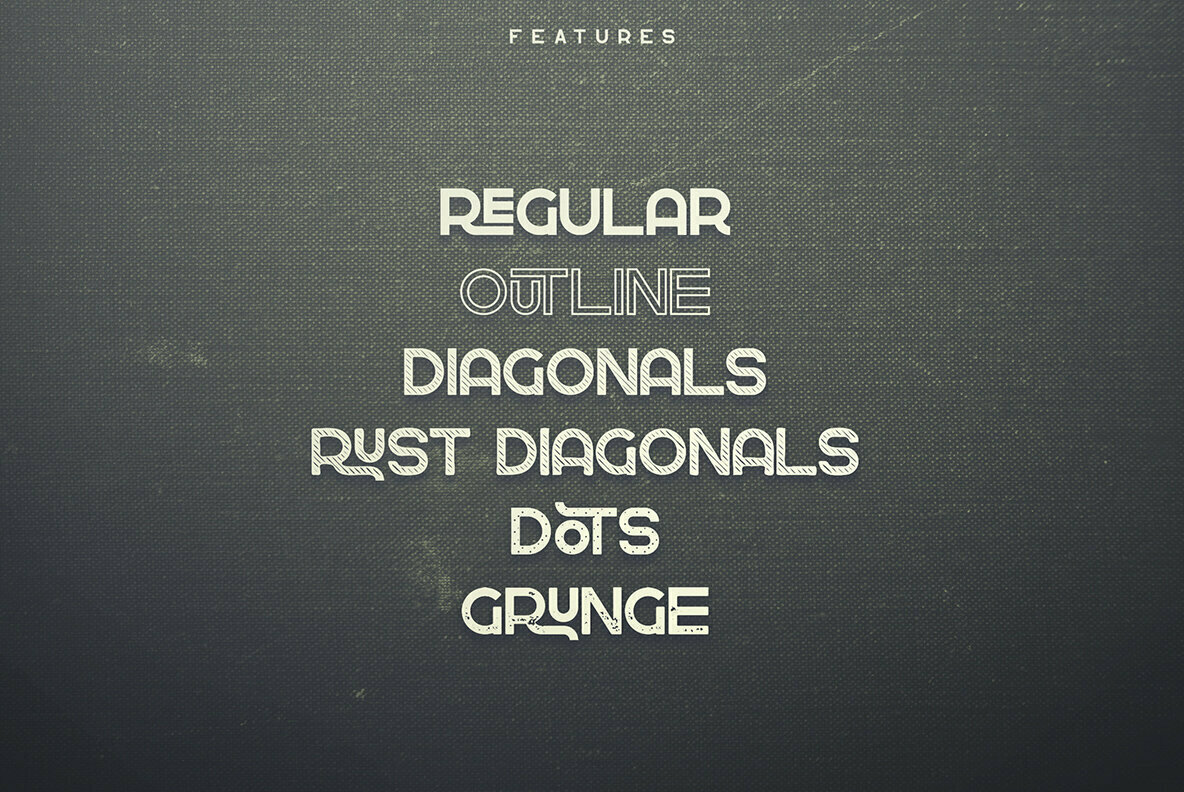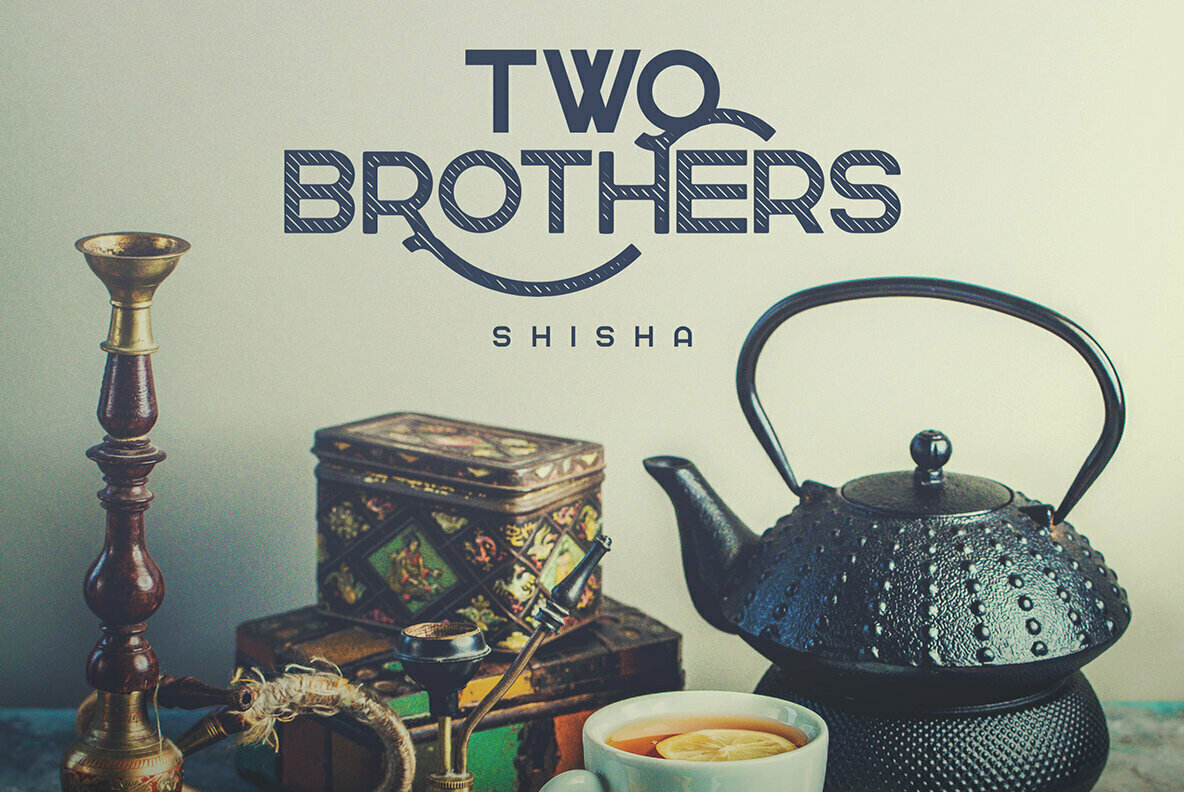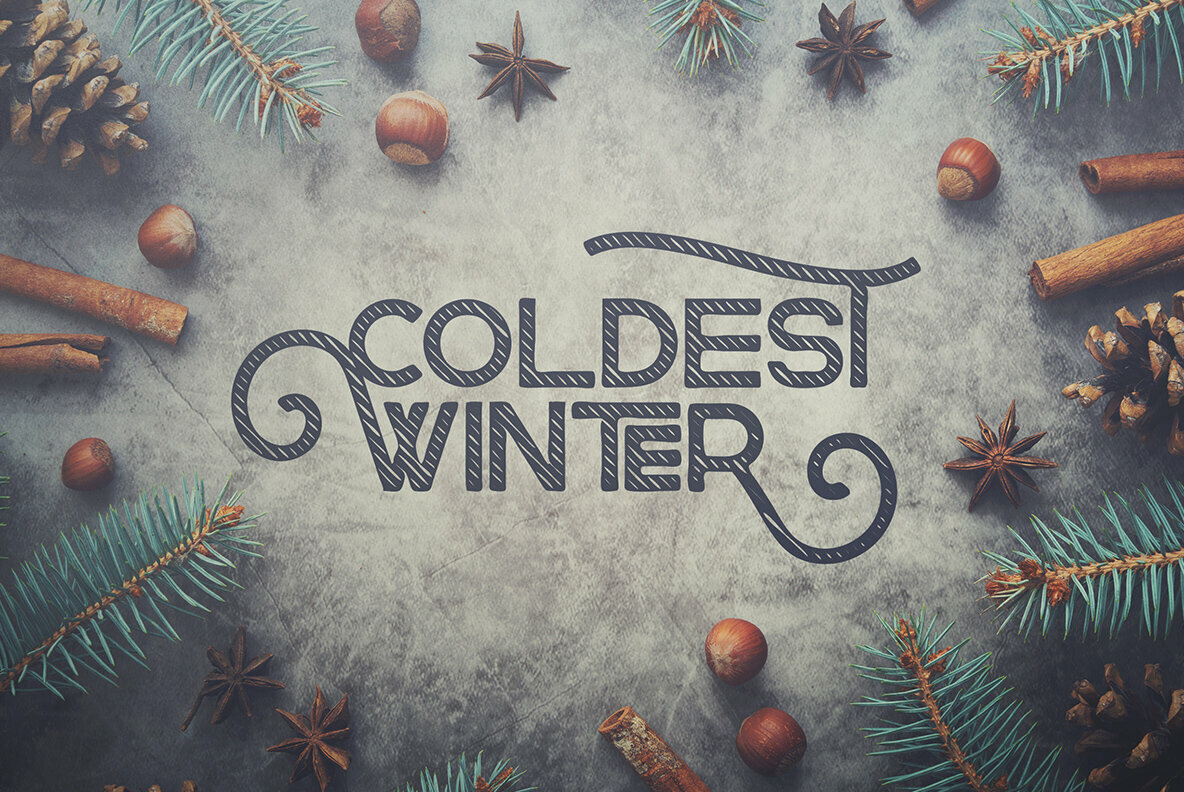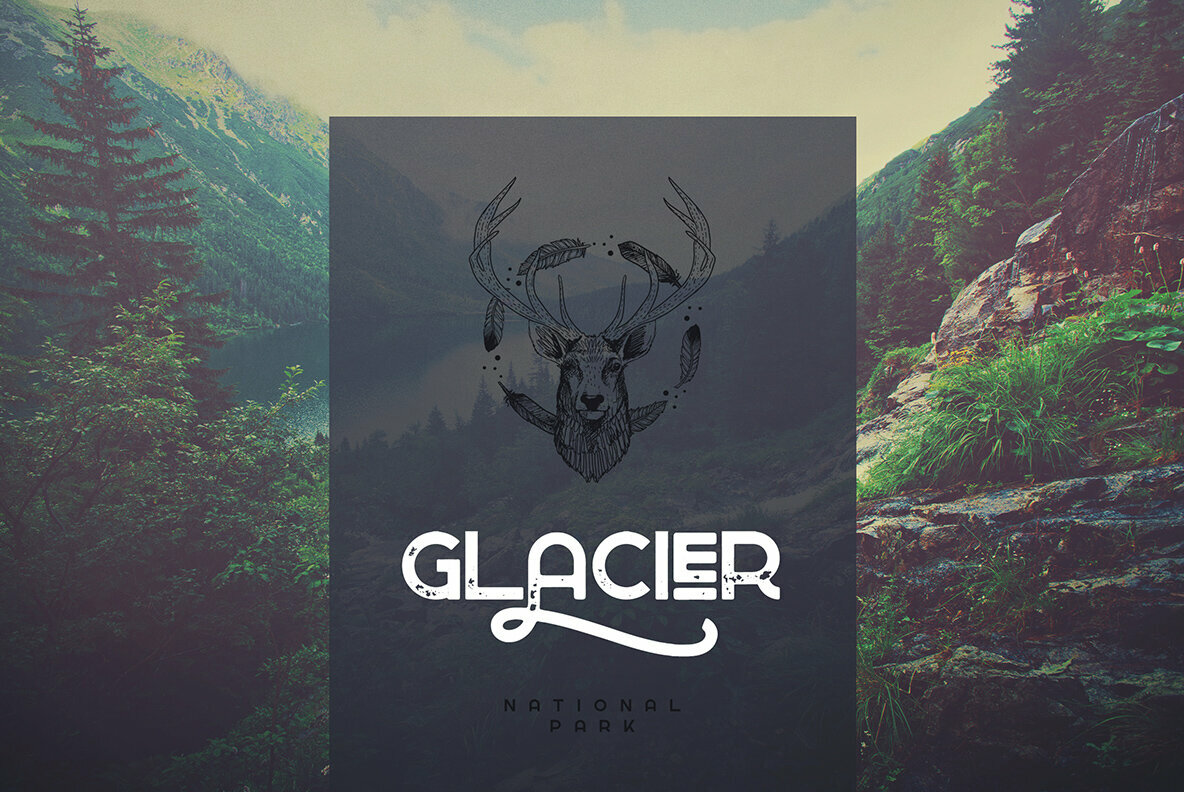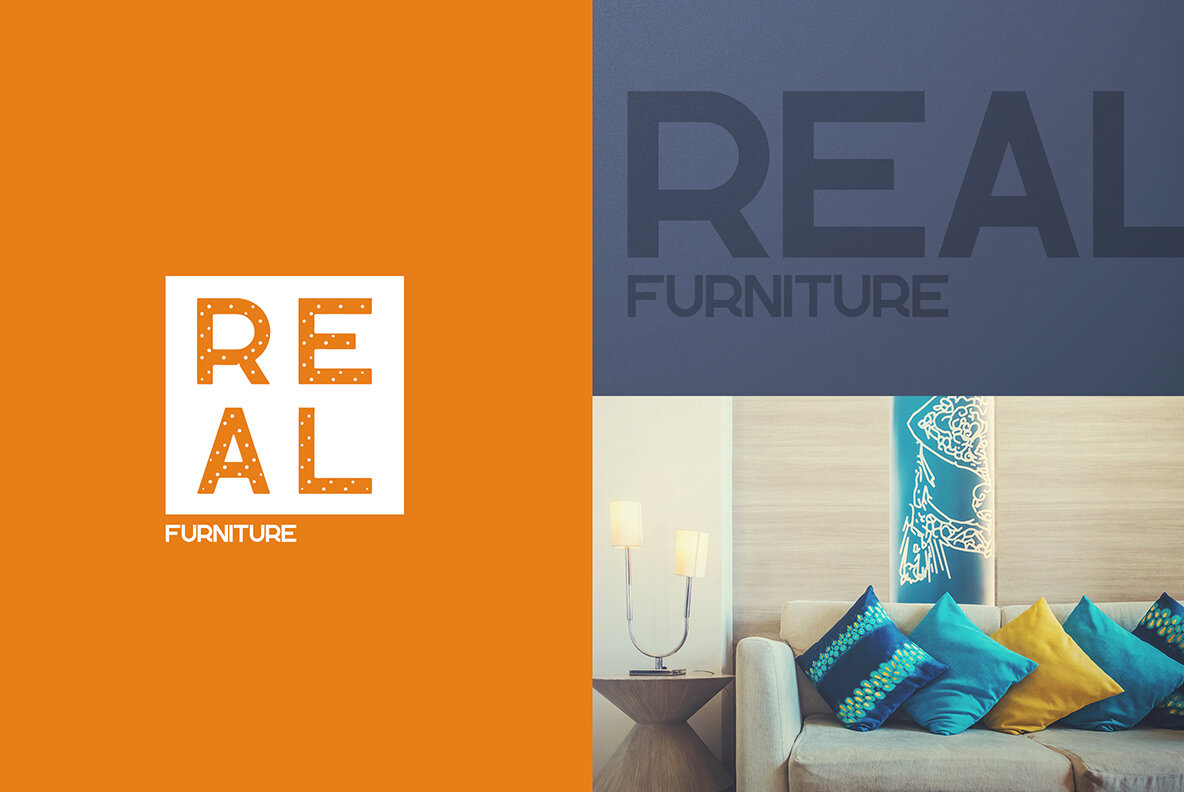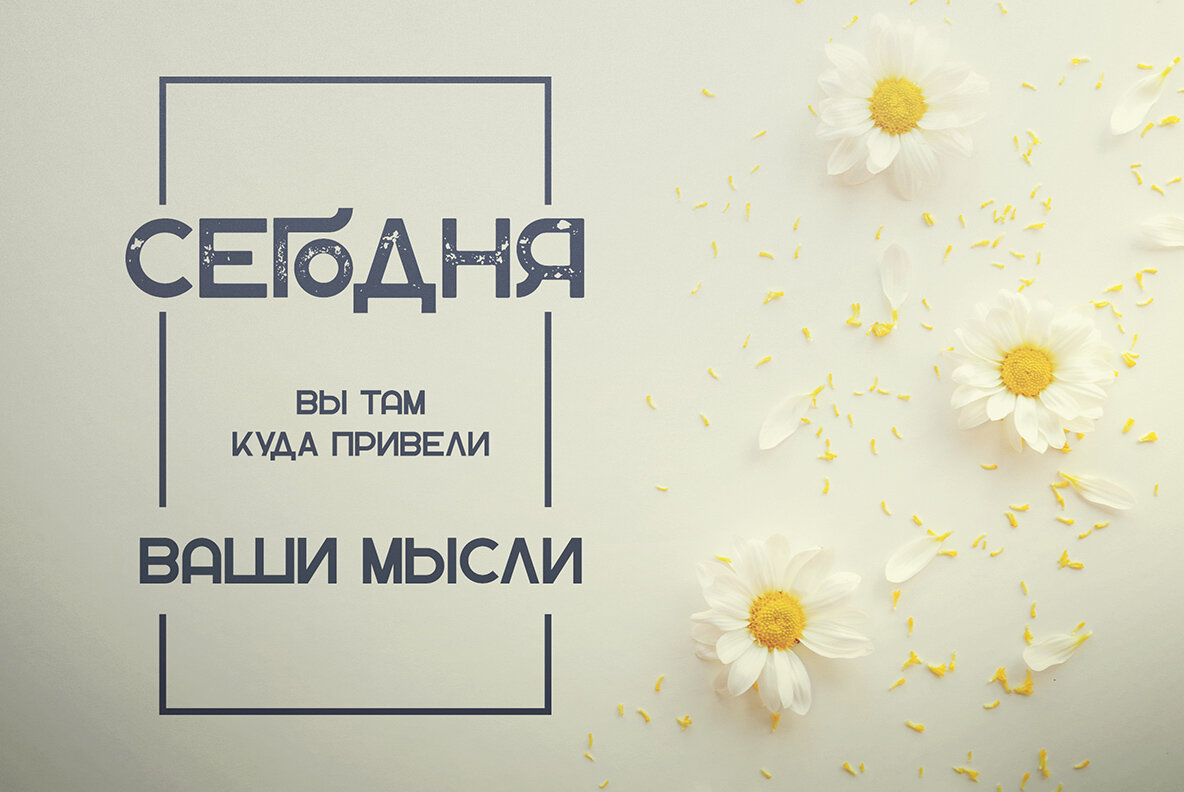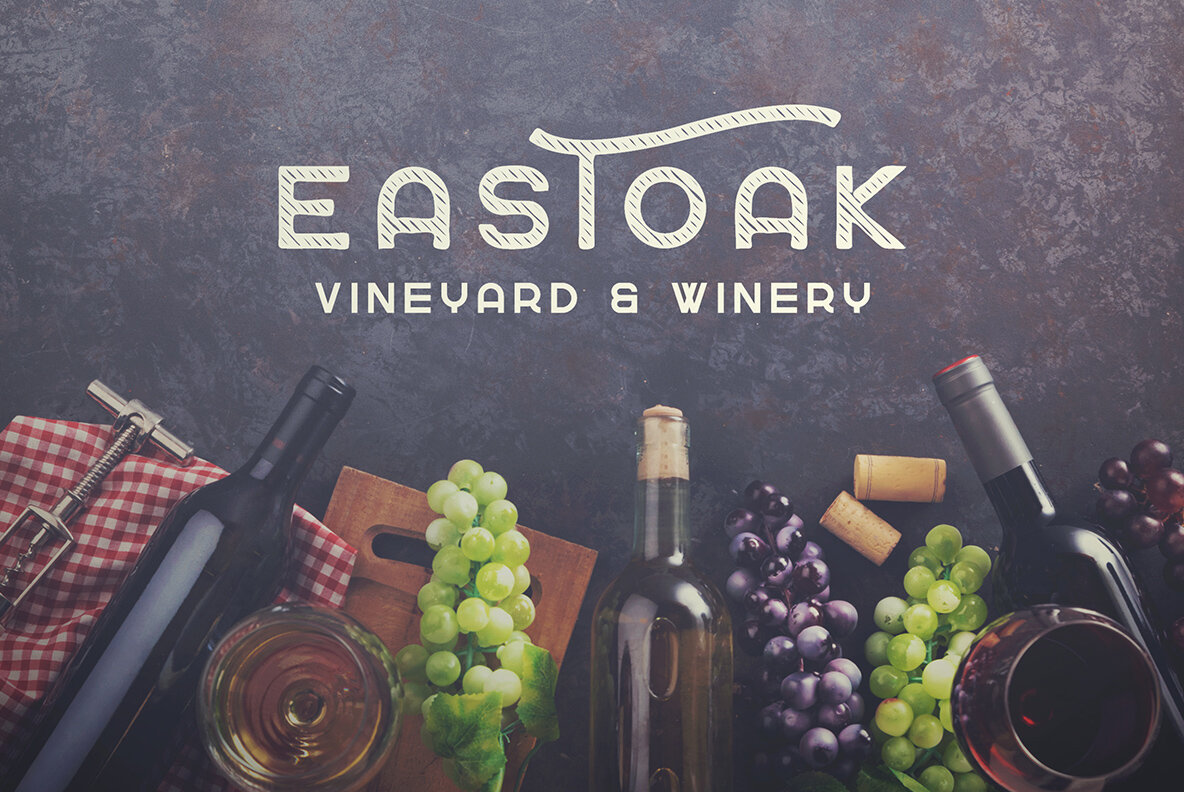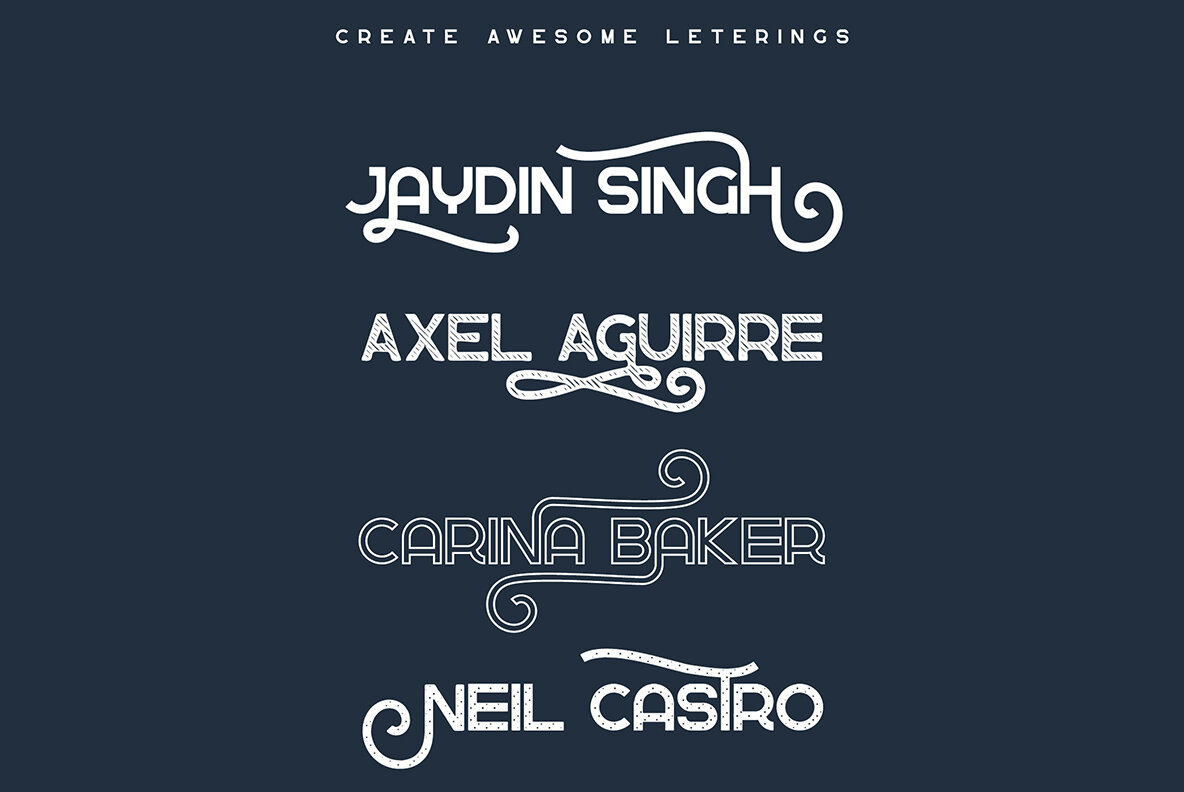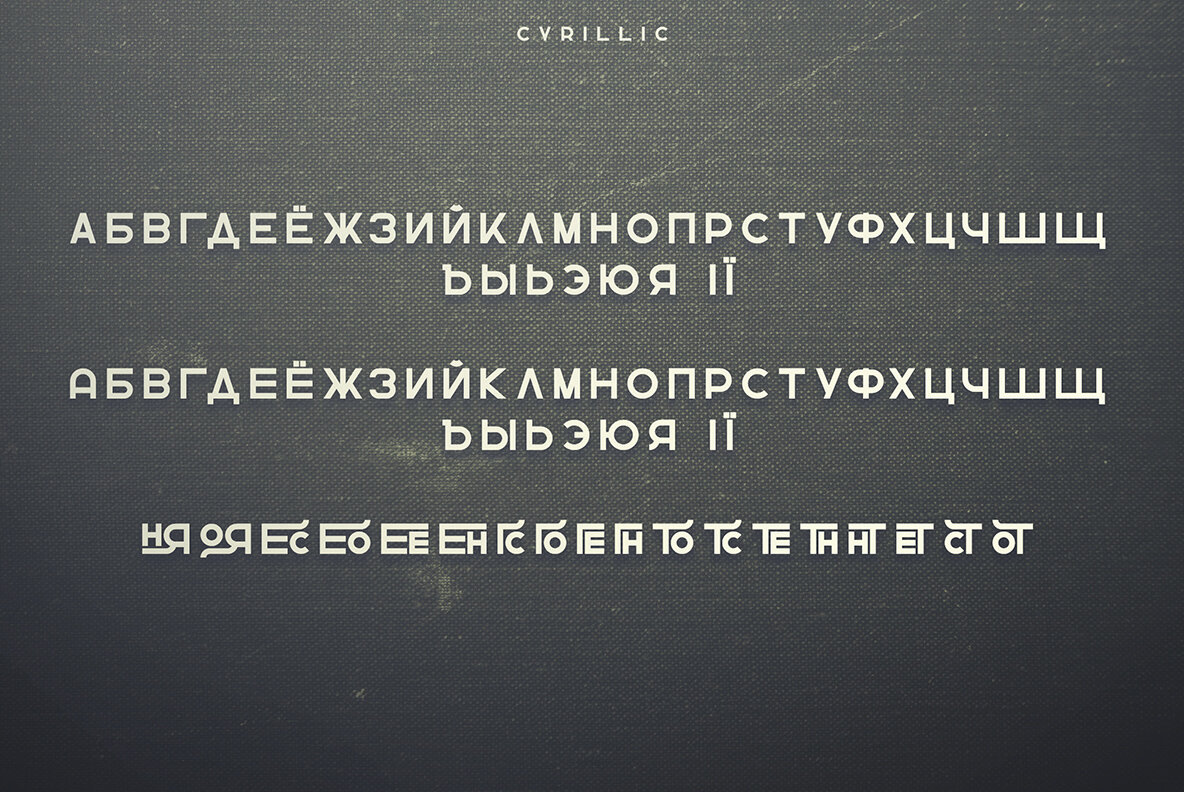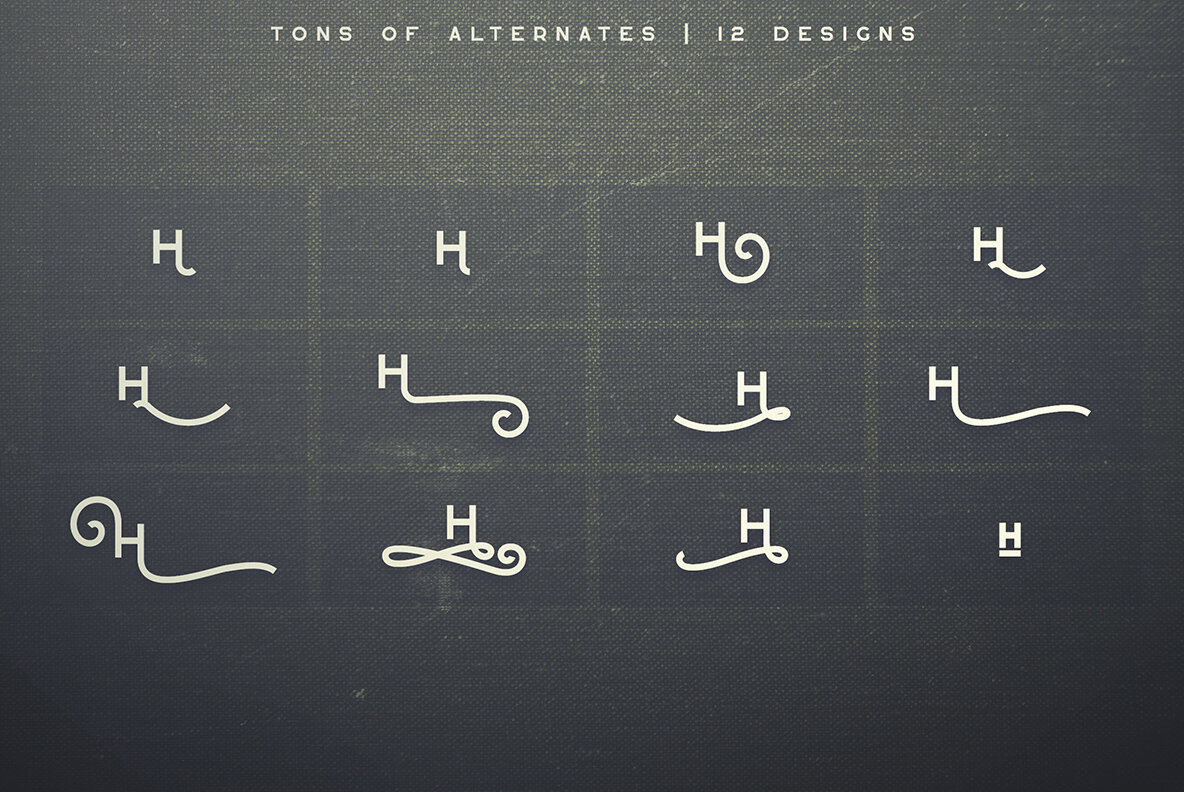
Greenth Font
Greenth Regular
Greenth Diagonals
Greenth Dots
Greenth Grunge
Greenth Outline
Greenth Rust Diagonals
Greenth offers a bold, vintage display typeface with comprehensive Latin and Cyrillic support, designed for versatility across various design projects. Each of the six fonts in the collection provides 1,221 glyphs, including a plethora of alternate characters and ligatures, making it suitable for both small and large text applications. Perfect for branding, product packaging, and magazine headers, Greenth excels in any setting where a bold and stylish text overlay is needed. For graphic designers working in Adobe applications, accessing alternate glyphs can be easily done via the Glyphs panel in InDesign and Illustrator or through Photoshop's Glyphs menu.Greenth: Bold Vintage Display Typeface with Latin & Cyrillic Support